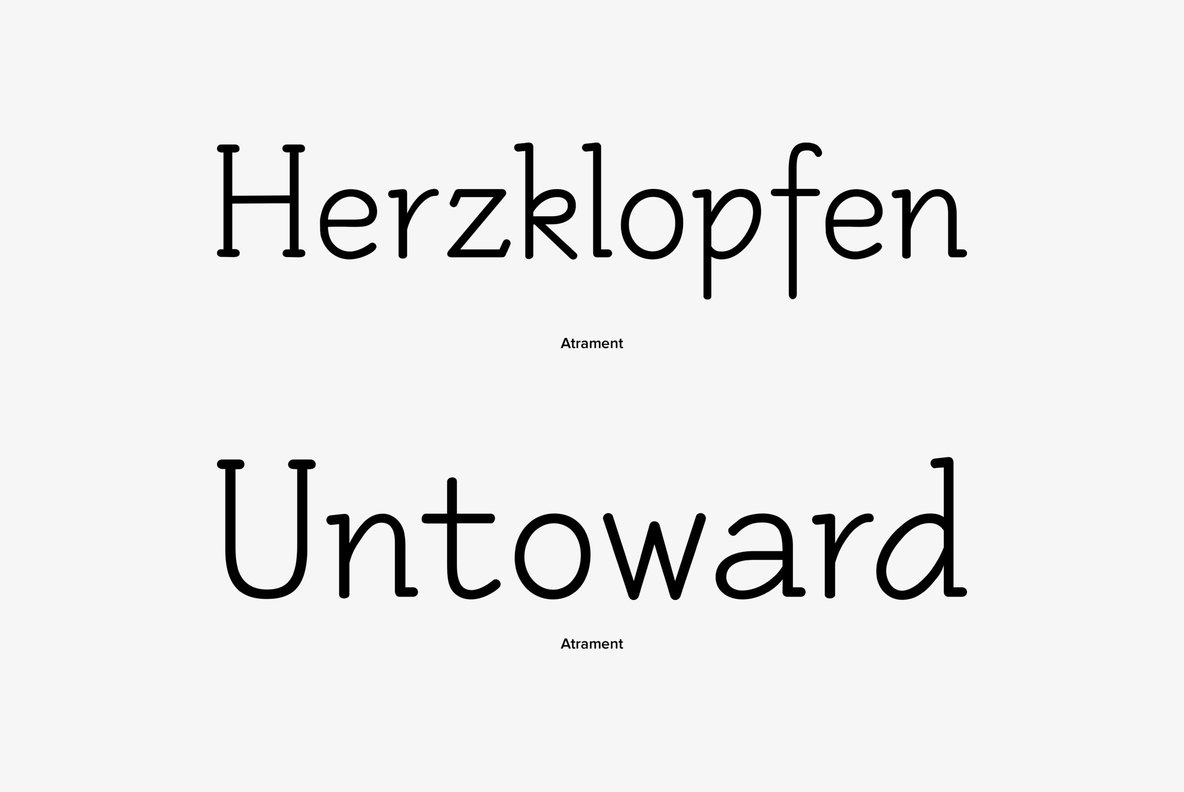
Atrament
Another new, beautiful script design by German type designer Ralph M. Unger. Atramant is casual and easy, ideal for any setting in larger sizes. Still, due to its excellent legibility, it can also be used for littel text blocks in smaller sizes. Atrament was designed for the URW++ FontForum.